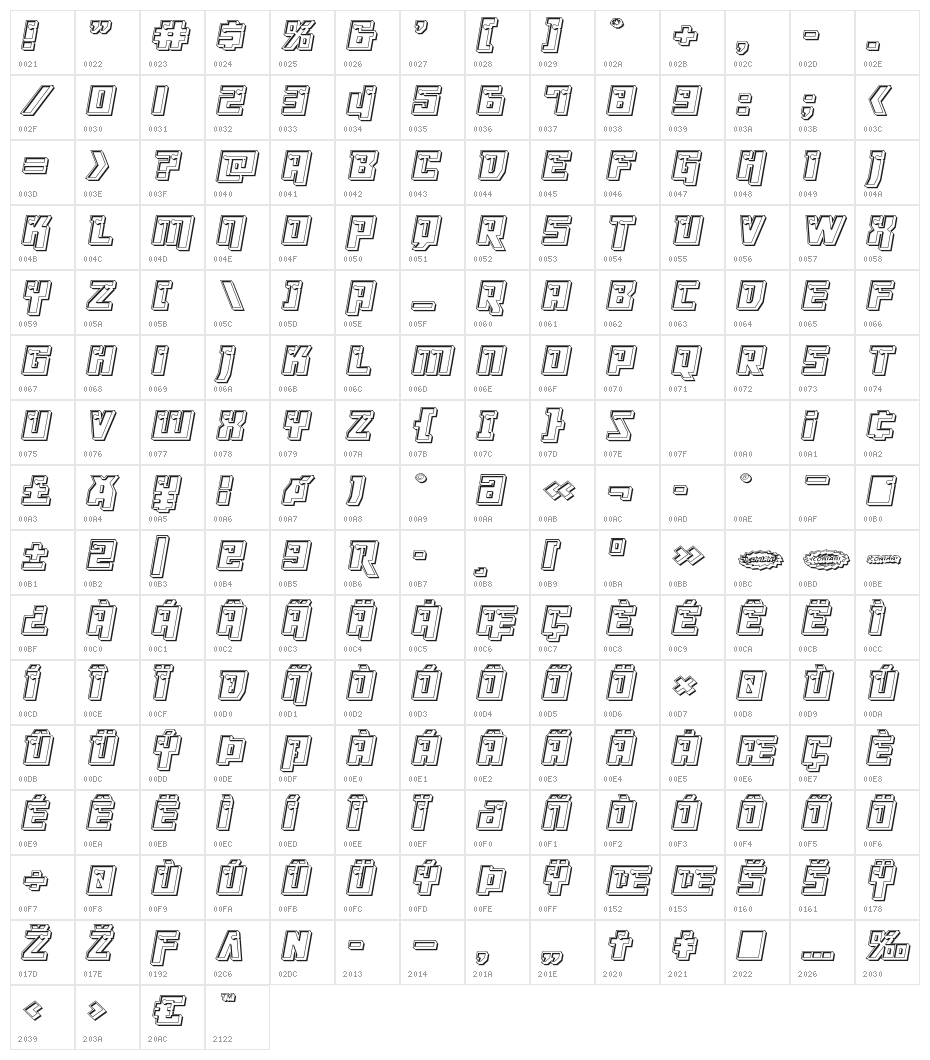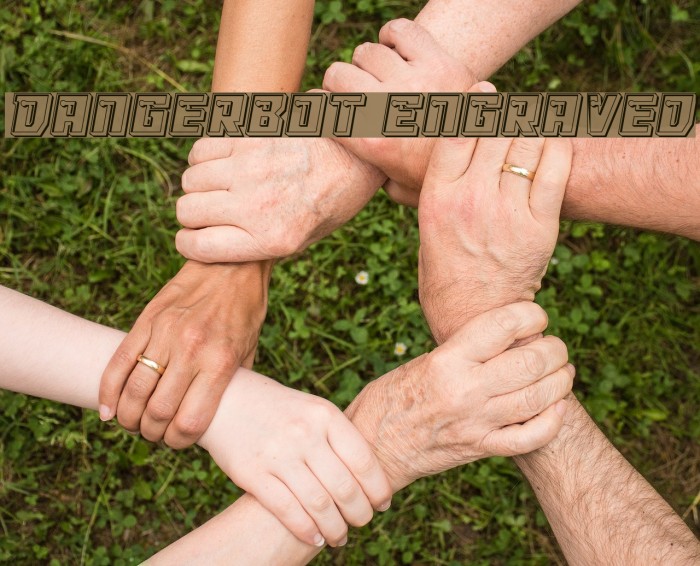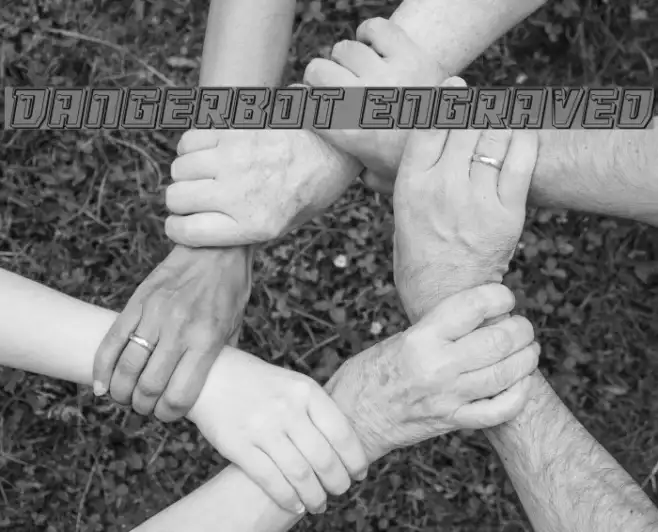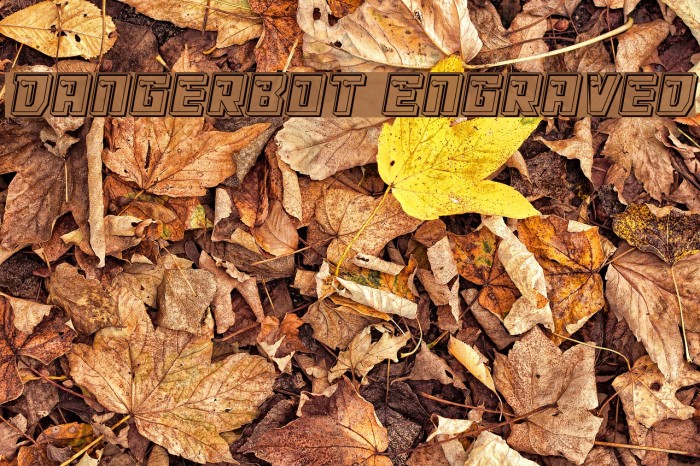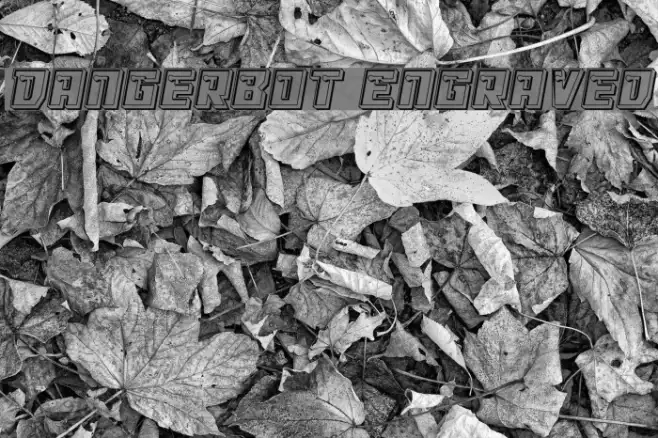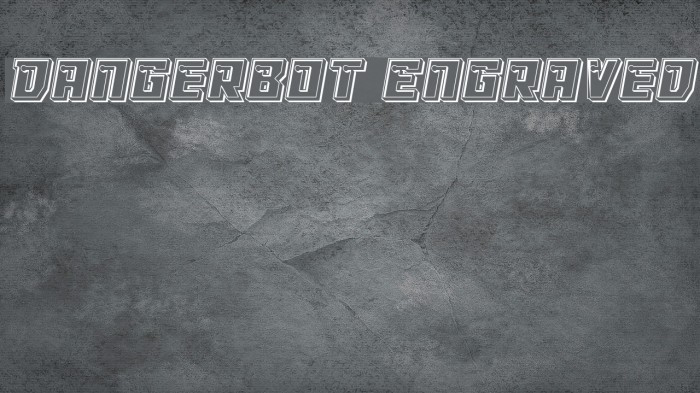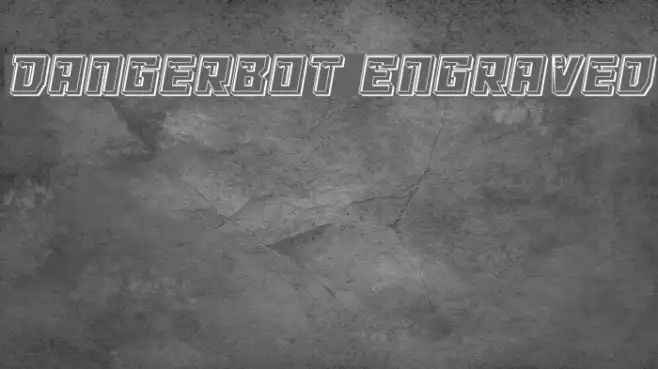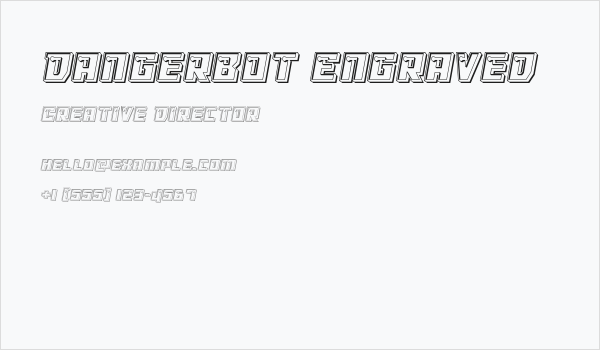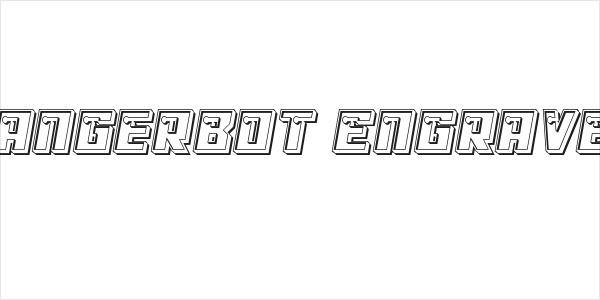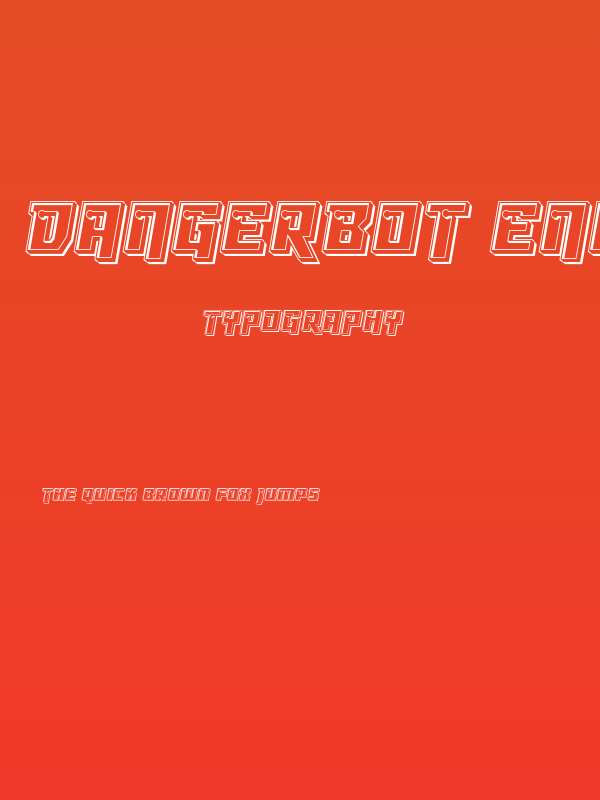
Dangerbot Engraved Font
Dangerbot Engraved Description
This font features a bold, three-dimensional engraved style with a futuristic and industrial feel. Each character is outlined with a thick border, giving it a strong and impactful presence. The geometric shapes and angular lines create a sense of depth and structure, making it ideal for attention-grabbing designs. The uppercase and lowercase letters maintain a consistent style, with the numbers and special characters following suit. This font is perfect for projects that require a modern and edgy aesthetic.
| Proposed Projects | Ideal for sci-fi themed posters, video game titles, tech branding, and edgy logo designs. |